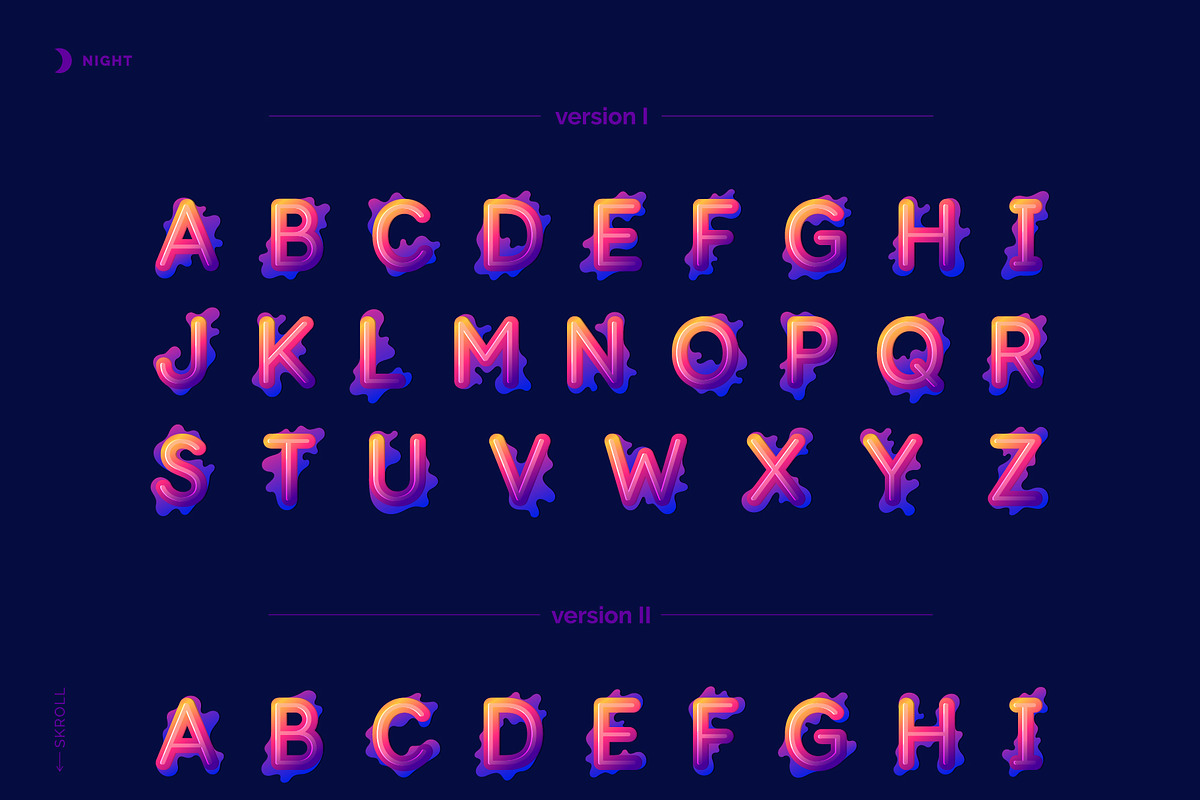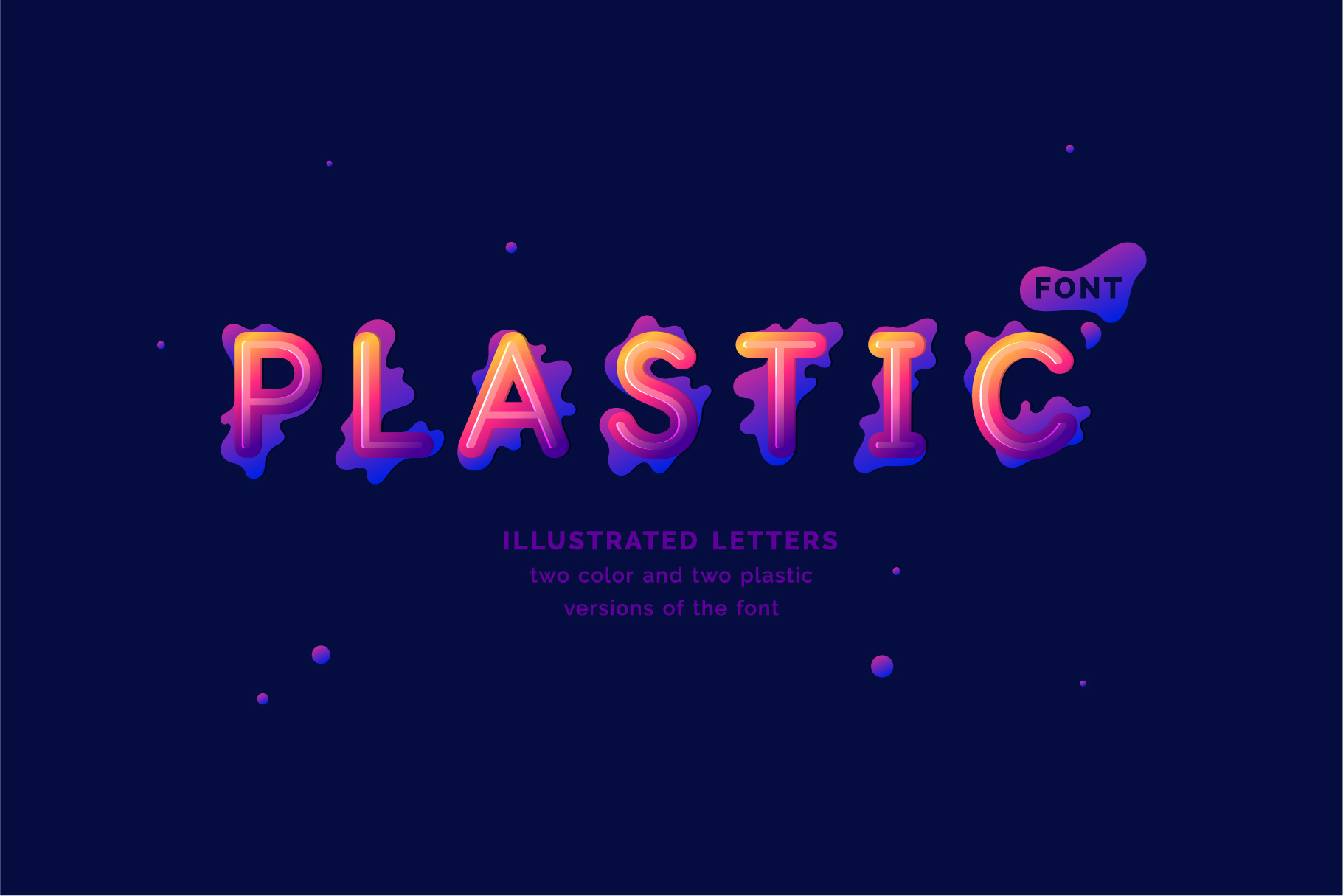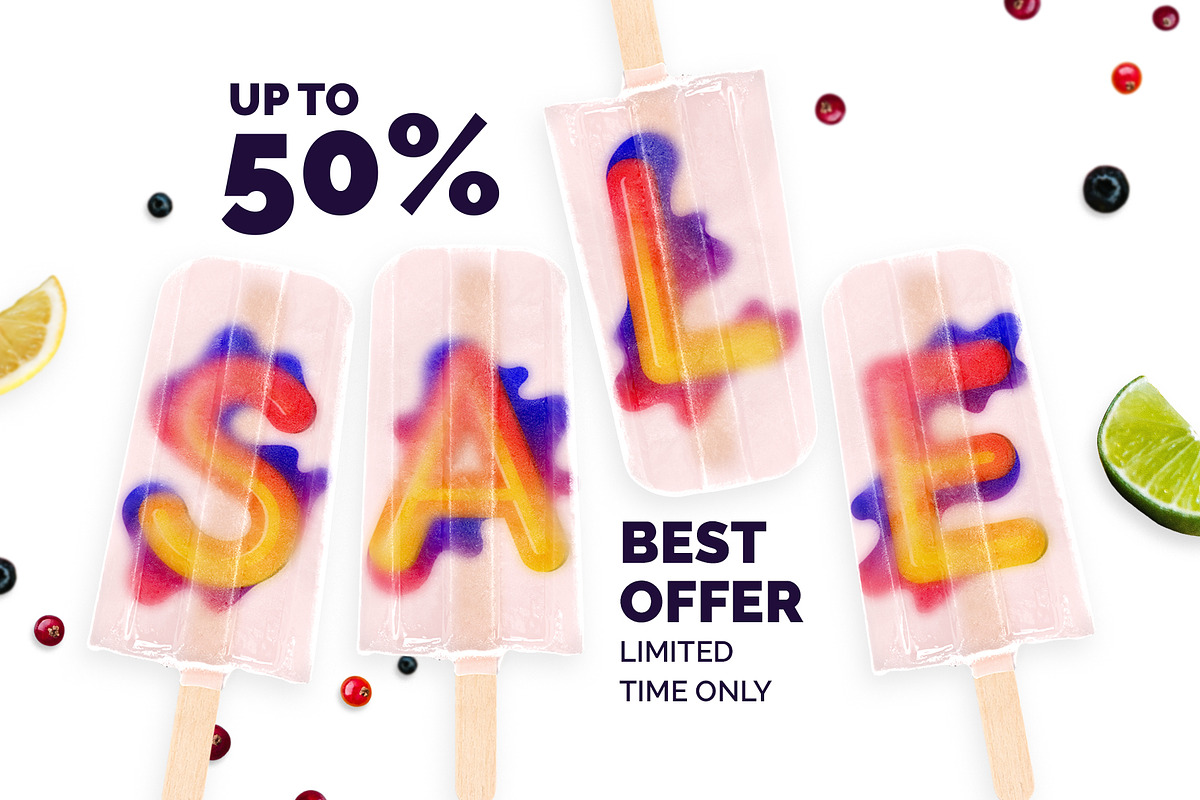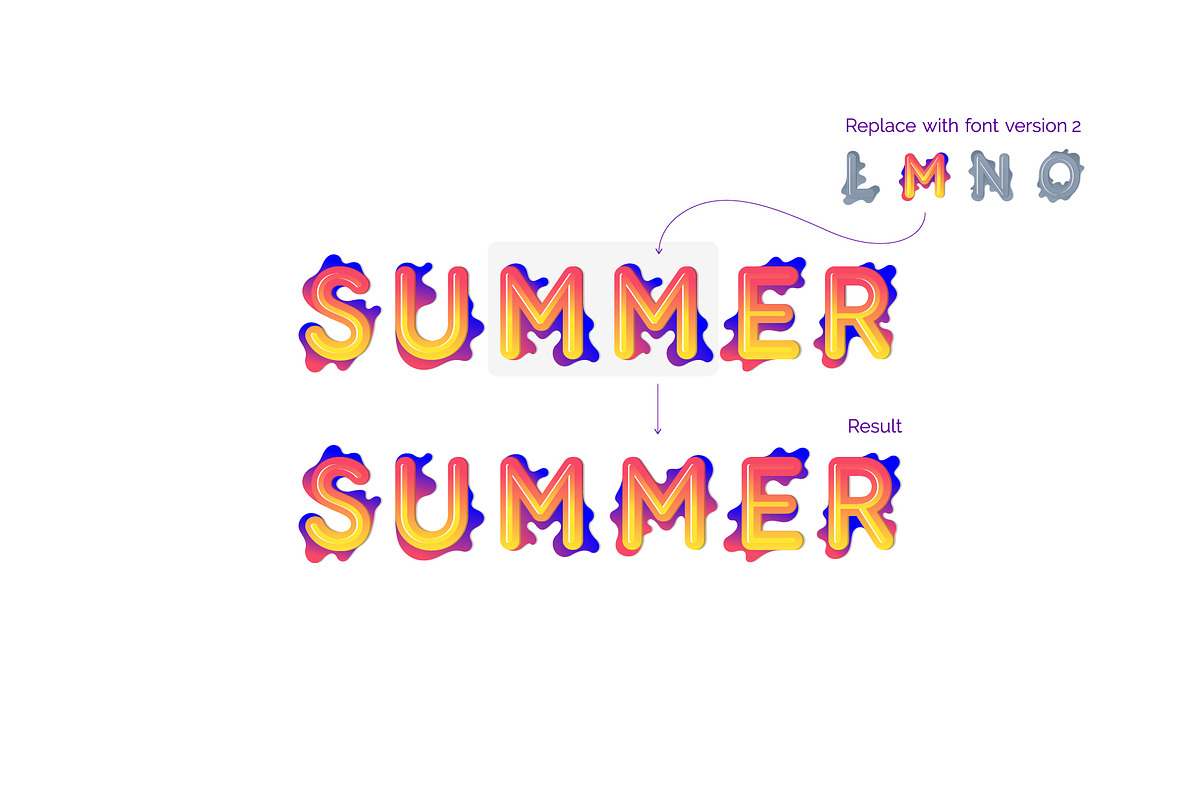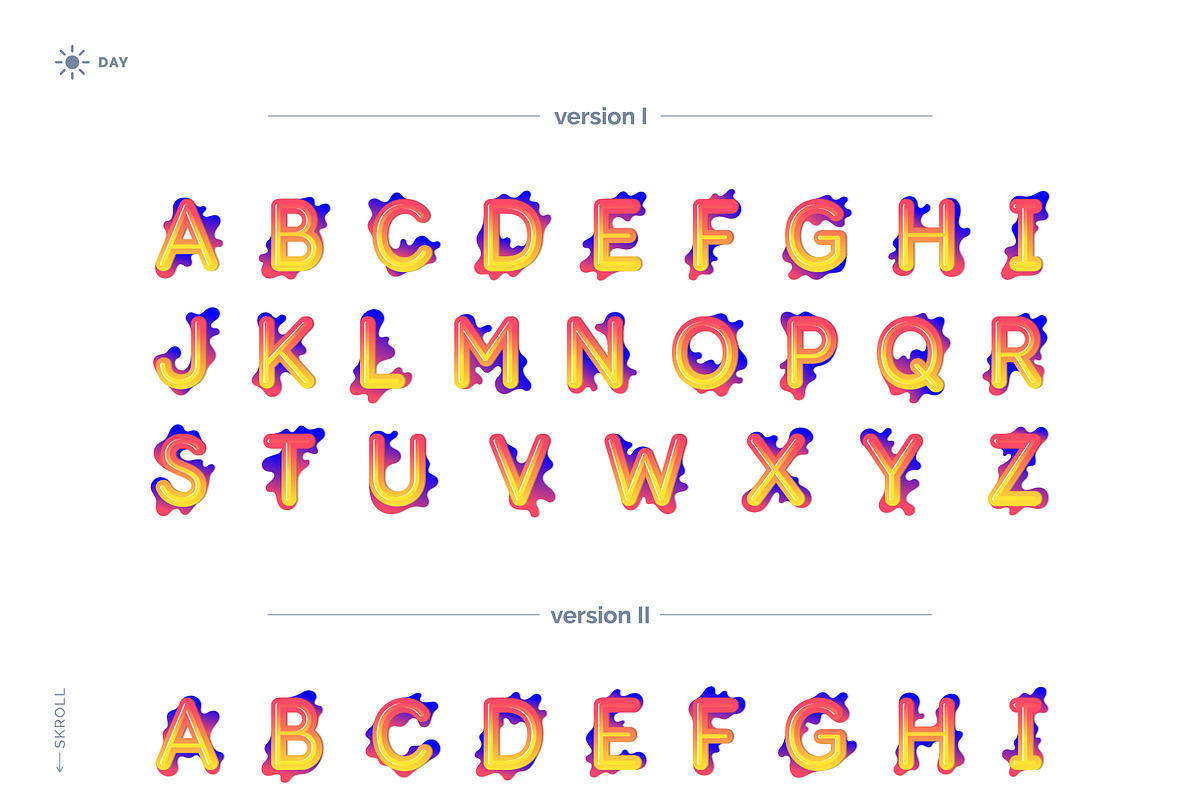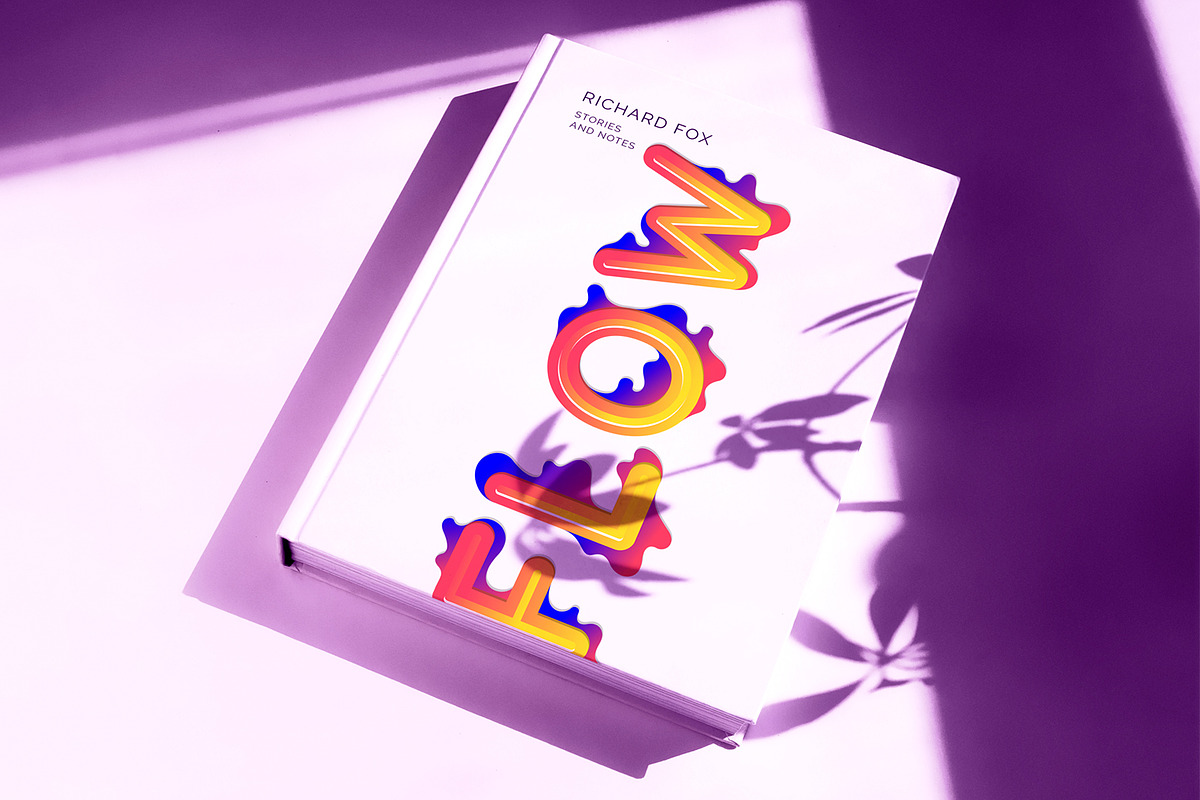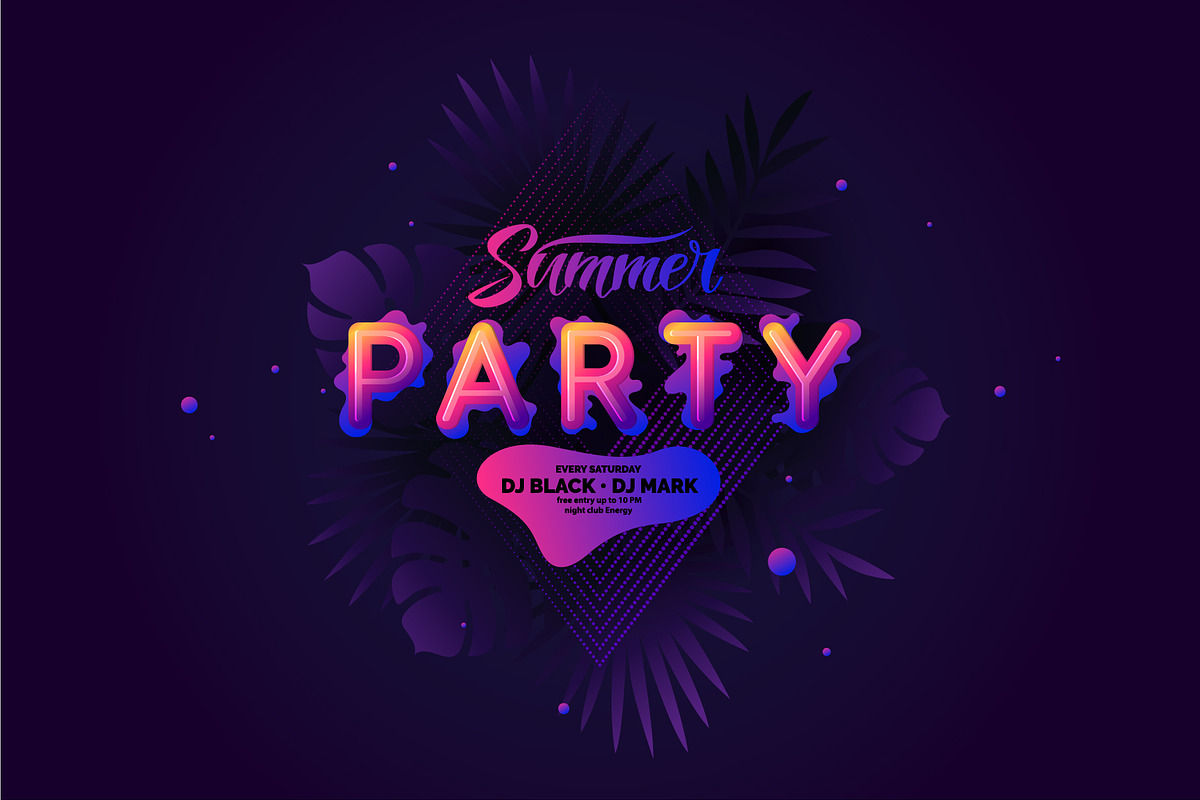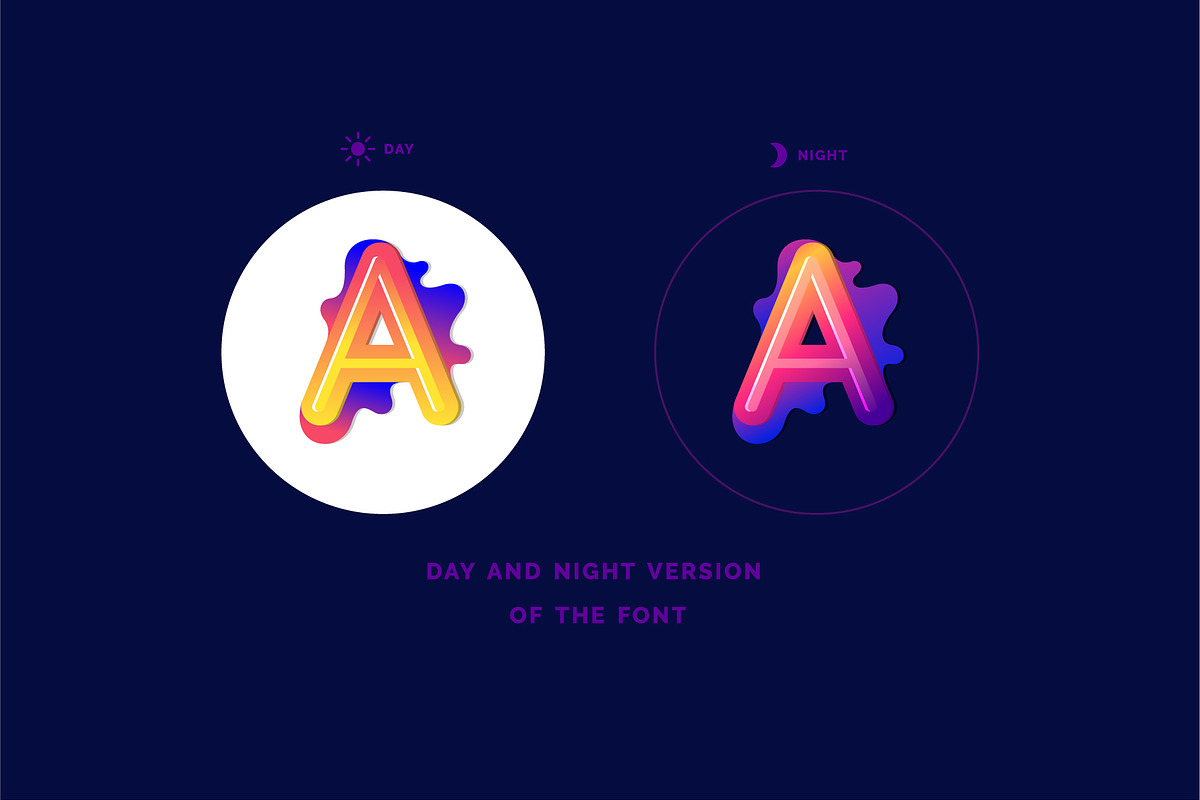
Plastic font / Illustrated letters
Hi, I want to introduce you a font PLASTIC.
Font PLASTIC is a set of capital letters of the Latin alphabet. Each sign is a small illustration. You will be able to form words from that font. You can create your own look and use it for logos, labels, posters, magazines, books, cards, packaging.
I offer you 2 color versions font and 2 plastic versions. On the previews you can see the color versions of the font. The archive contains: AI (Adobe Illustrator) files and EPS10 files.